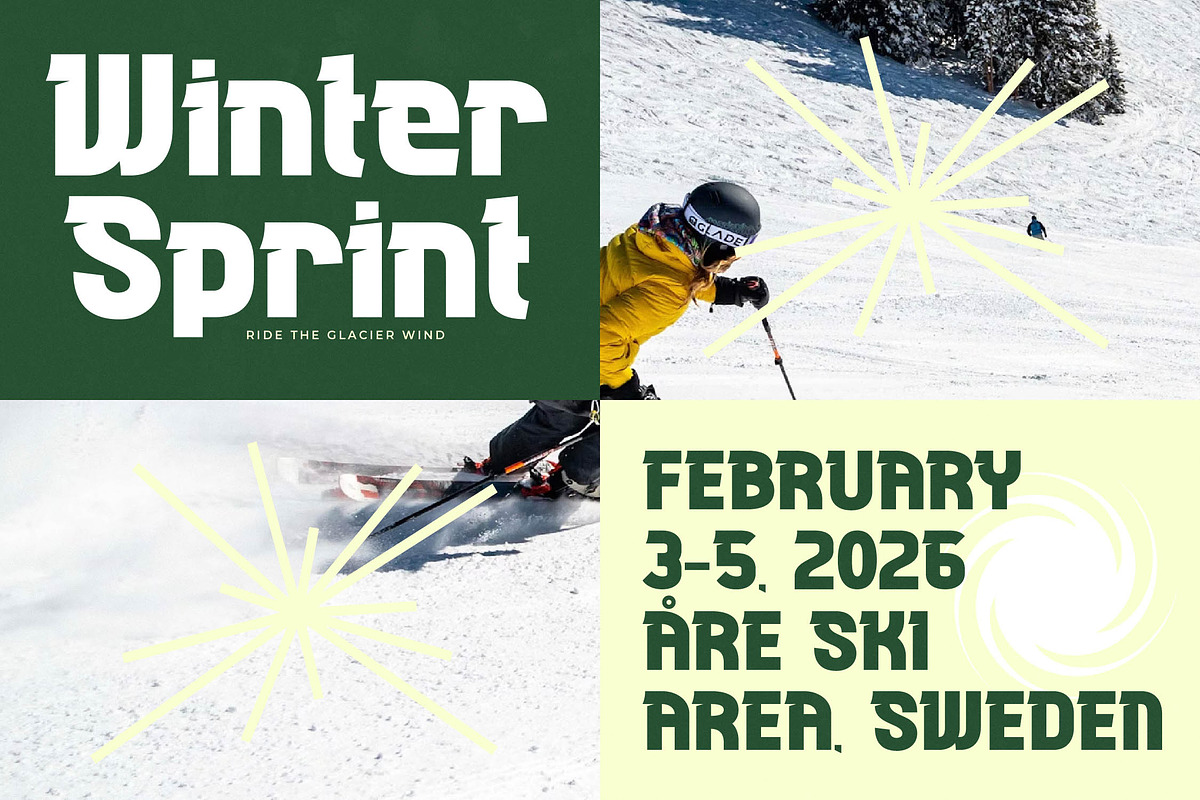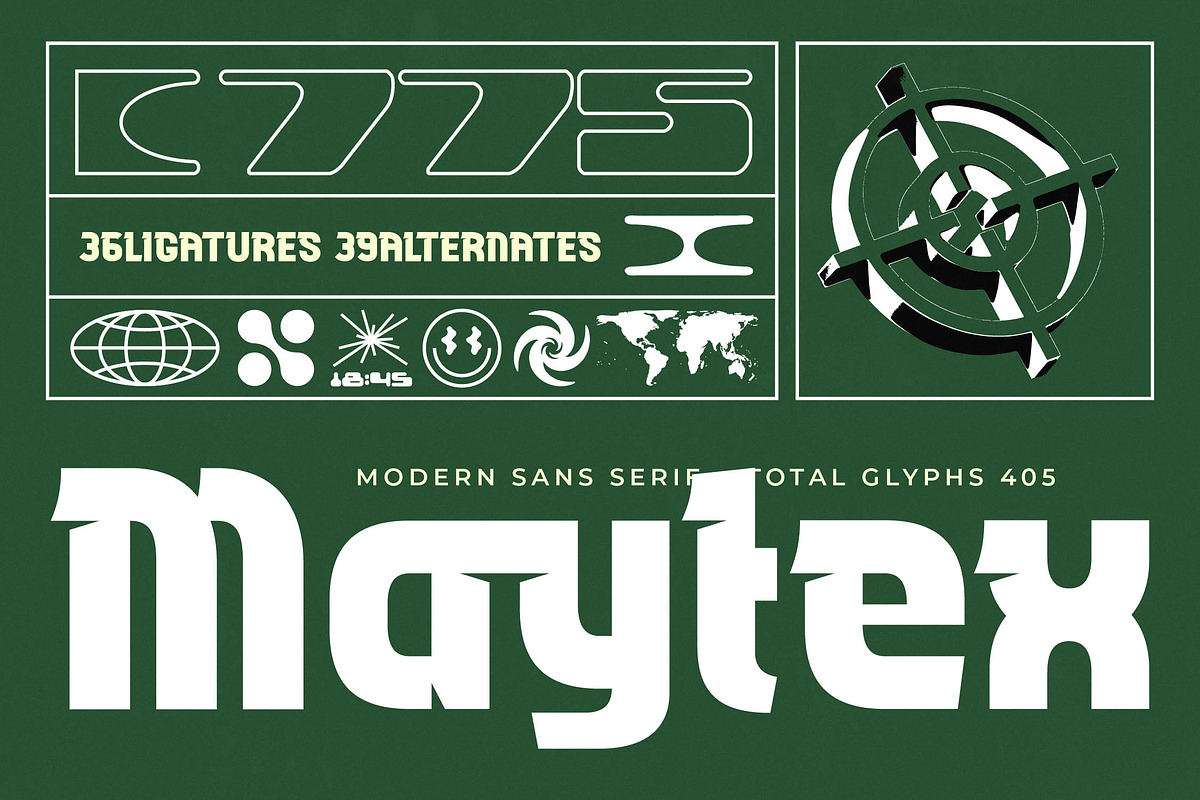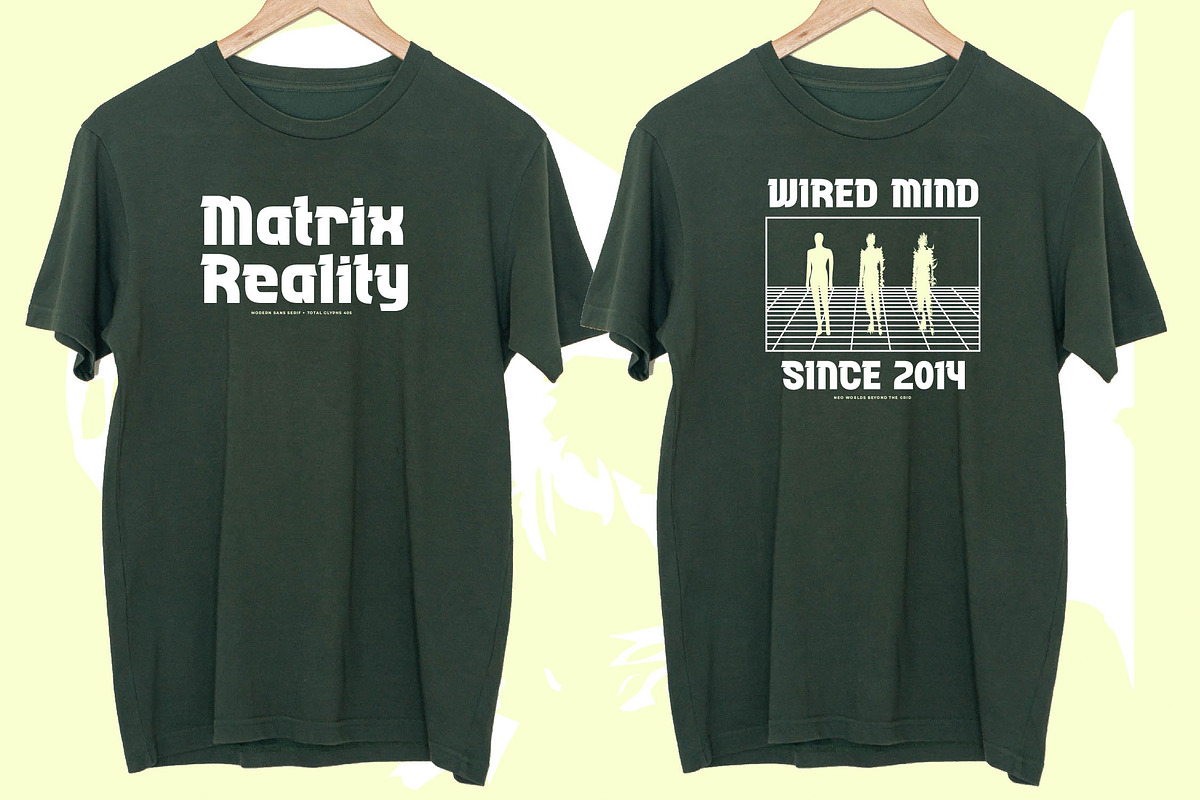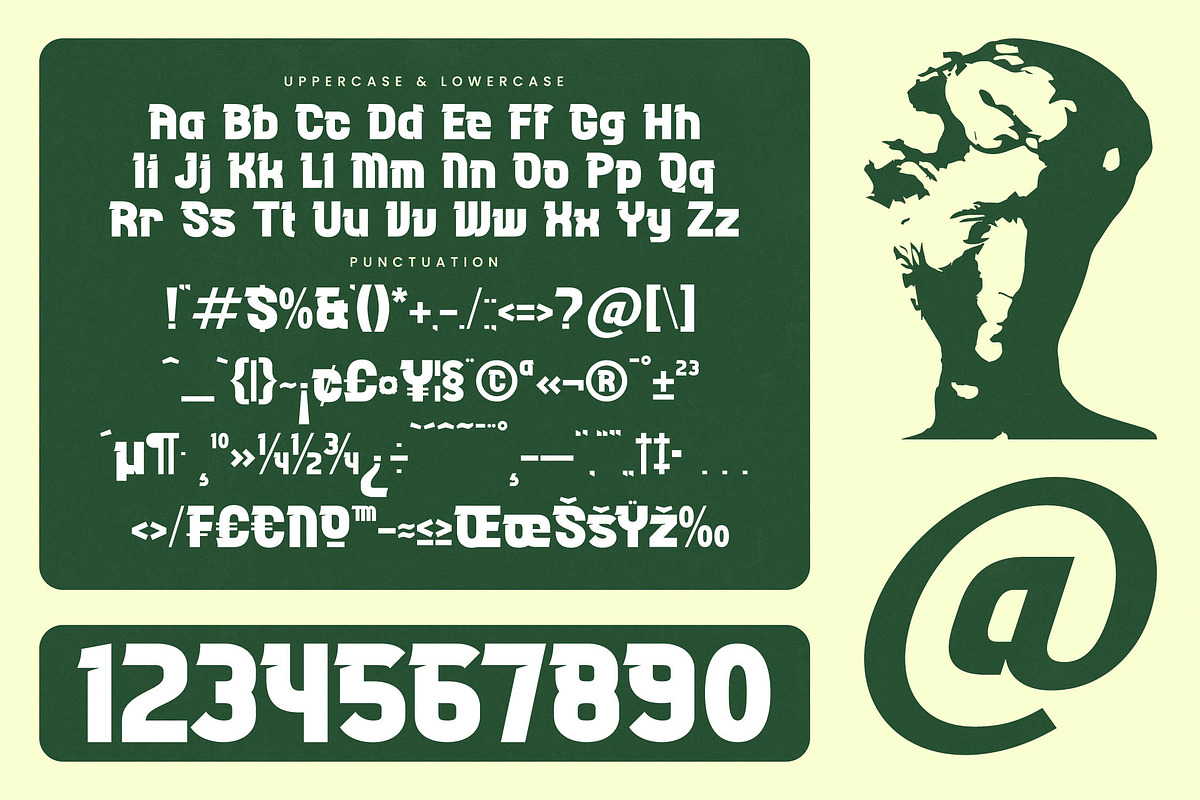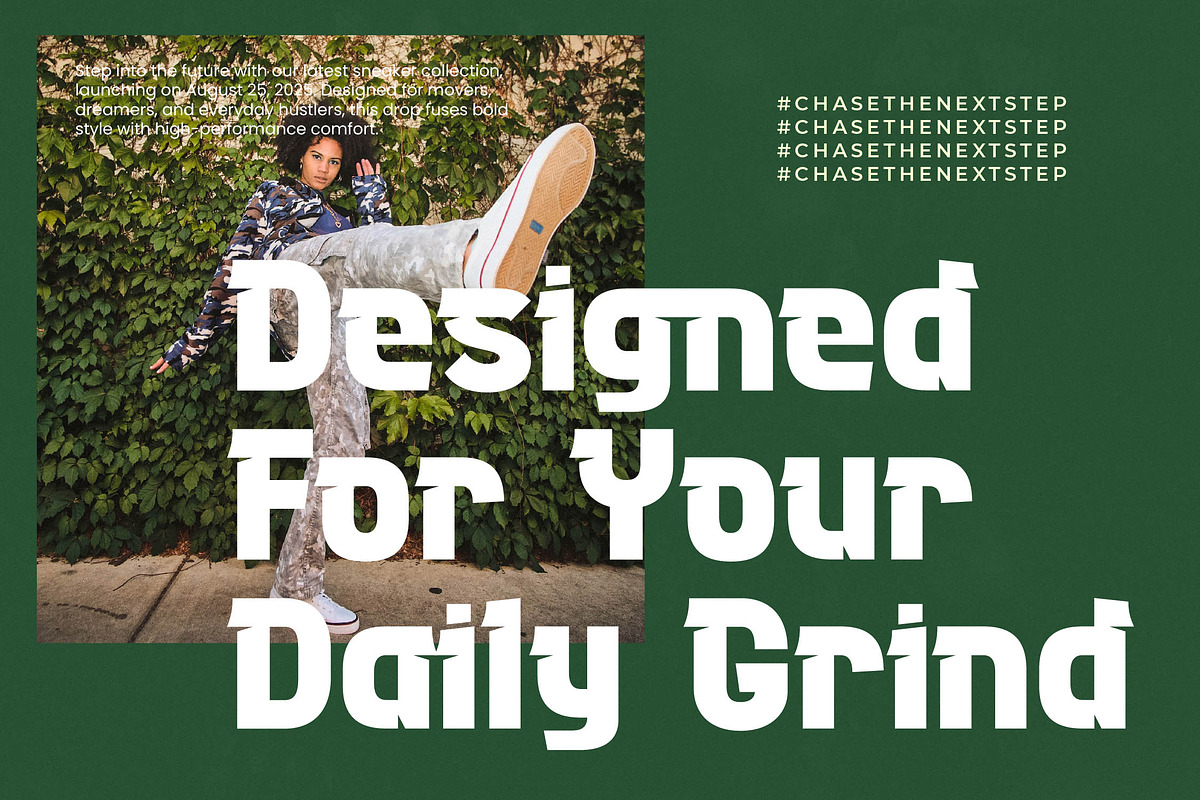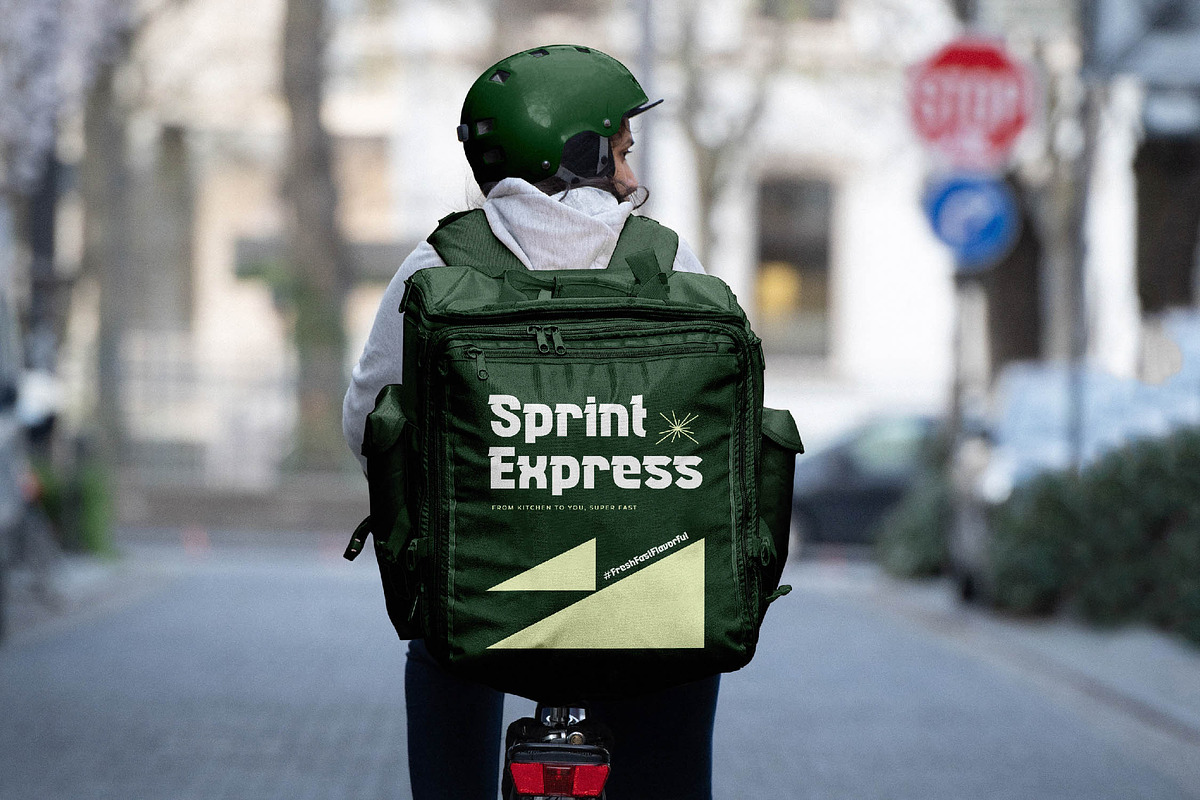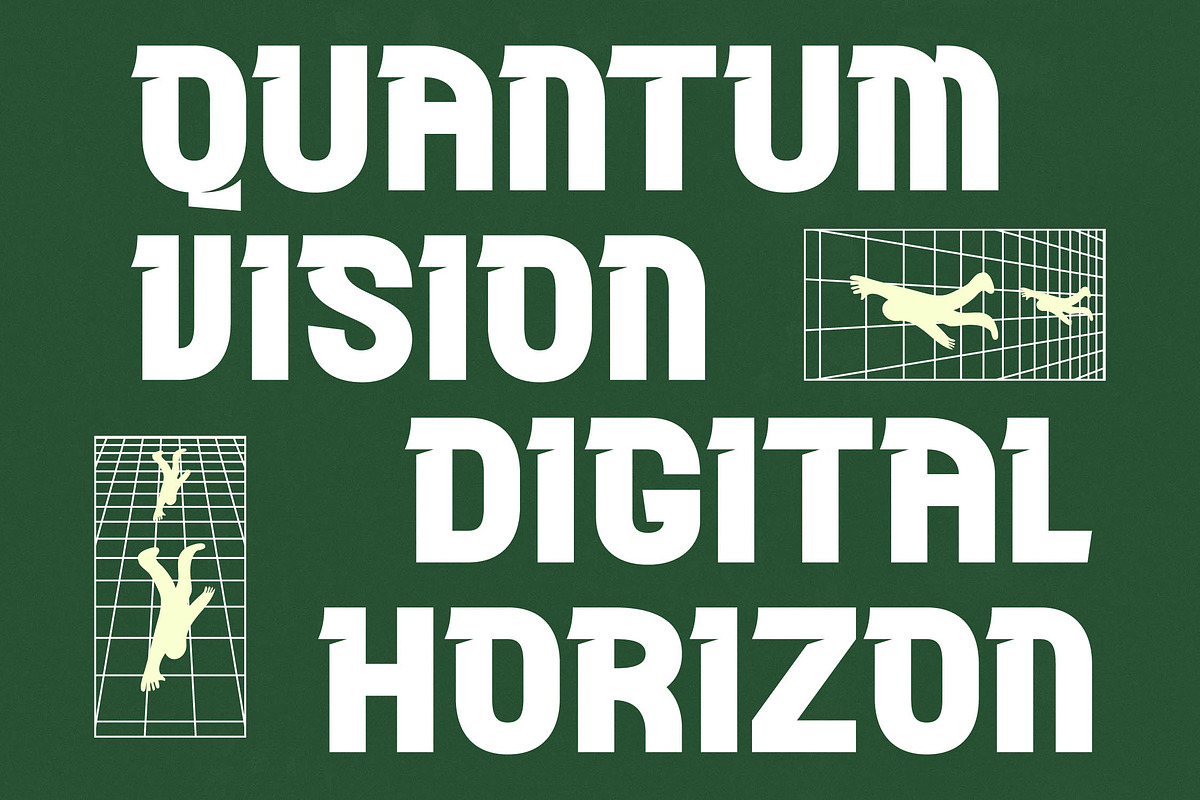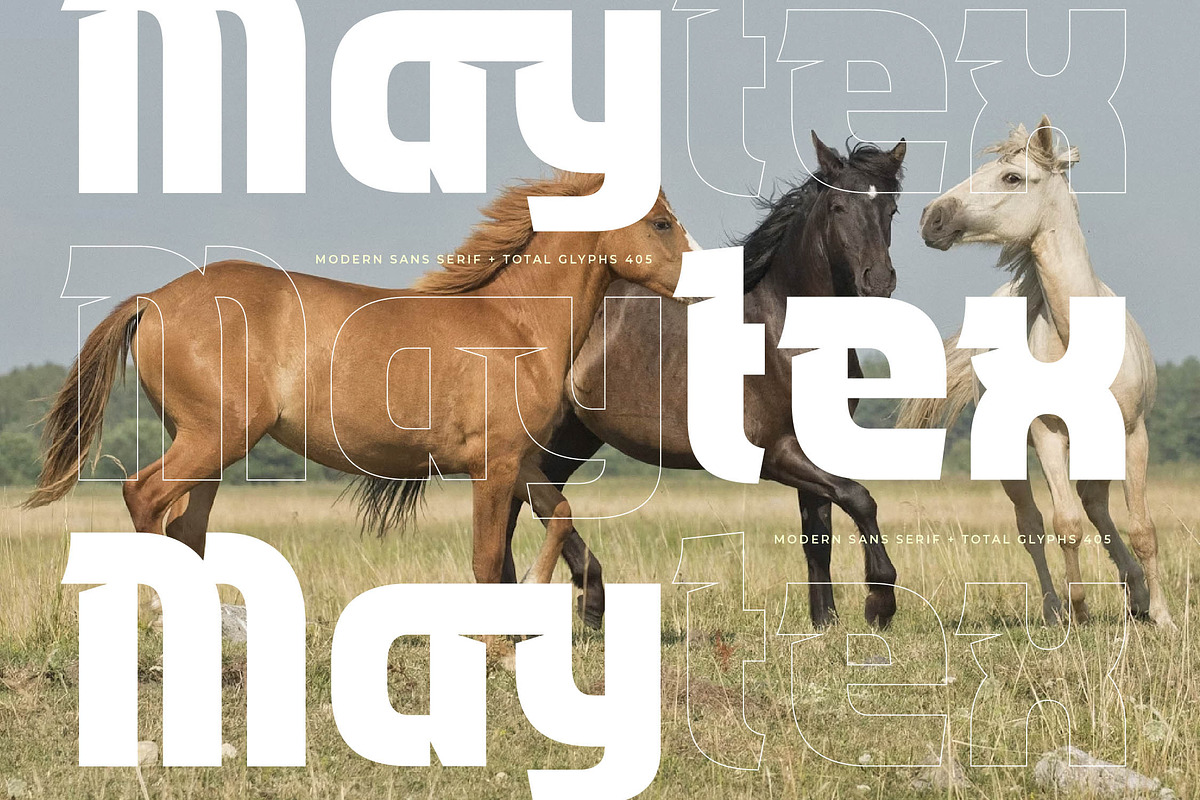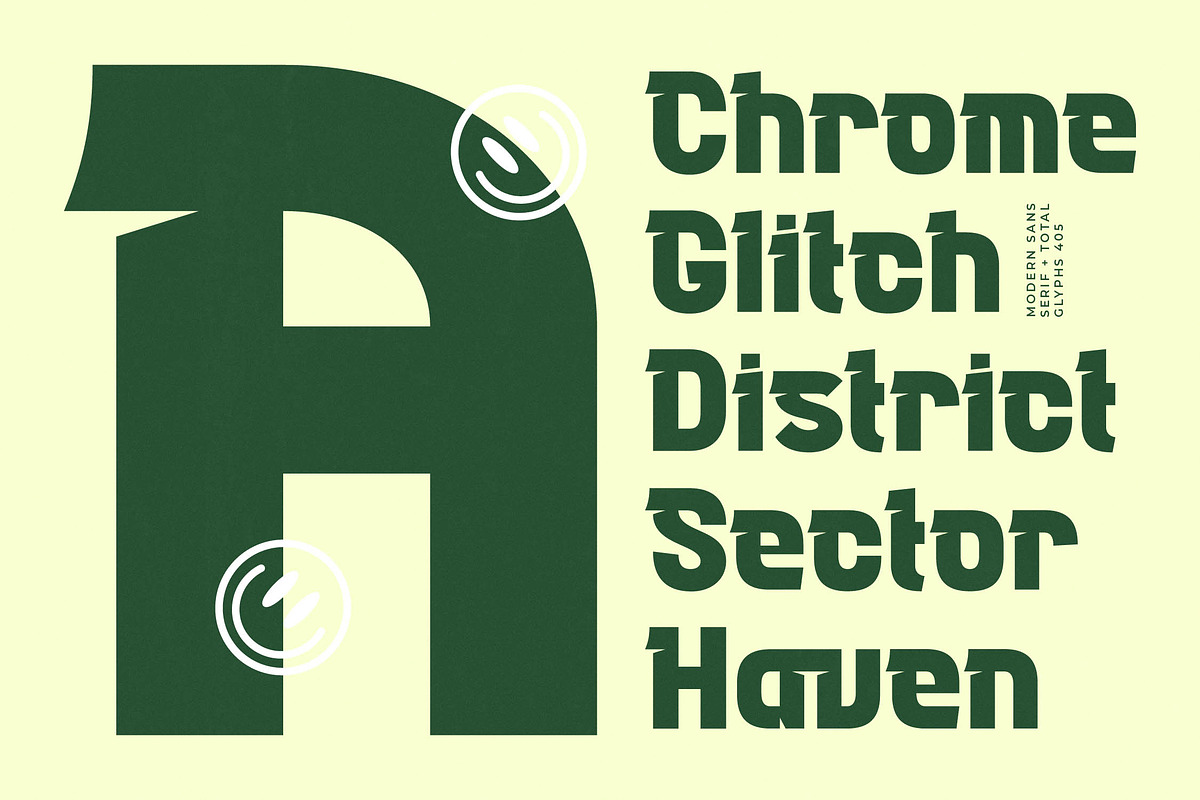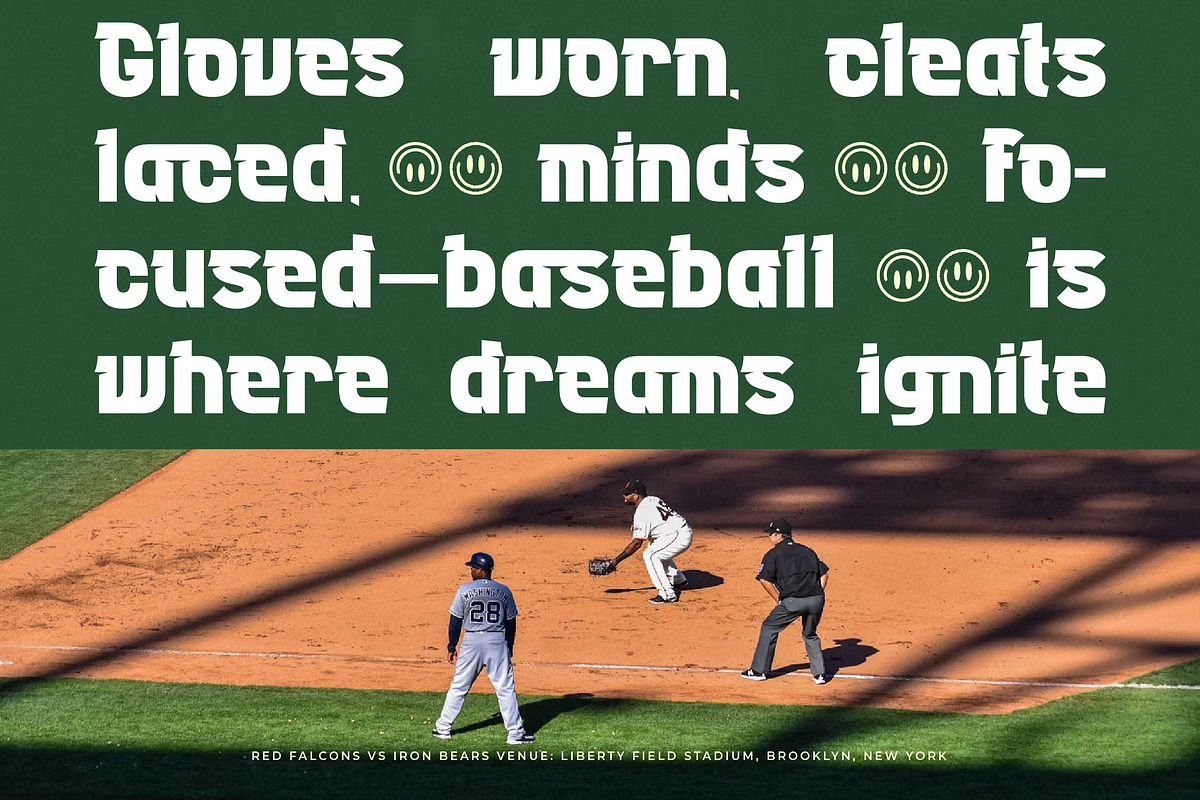
Maytex Modern Futuristic Sans
Maytex is a commanding visual statement designed to push the boundaries of contemporary type design and digital aesthetics. This bold display face captures the raw energy of high-tech interfaces and brutalist structures for an unmistakable presence.
Drawing inspiration from the sleek geometry of 90s technology and futuristic digital landscapes, the font evokes a sense of global connectivity and industrial precision. It bridges the gap between retro-tech nostalgia and forward-thinking minimalism through sharp ink traps and heavy forms.
Built for maximum branding impact, this modern sans serif delivers an aggressive yet sophisticated look that demands attention in any digital or print environment. It is the ultimate editorial font for those seeking a luxury typography feel with a sharp, unconventional edge and high-contrast geometry.
Riding the wave of the modern sans trend, this typeface fits perfectly within the current landscape of character-driven typography. It is an essential tool for creators looking for editorial display fonts that break away from traditional norms to embrace a more experimental, techno-industrial aesthetic.
Whether you are crafting a cutting-edge logo design or developing a comprehensive branding system, this font excels in high-visibility applications like packaging and fashion editorials. While it feels at home in tech spaces, it also provides a unique twist for a non-traditional wedding suite or high-end editorial layouts.
The package is loaded with technical versatility, including 36 ligatures and 39 alternates that allow for deep customization of every word. With full support for international characters and extensive multilingual glyphs, it ensures your message resonates across global borders.
- Ligature 36 Alternate 39